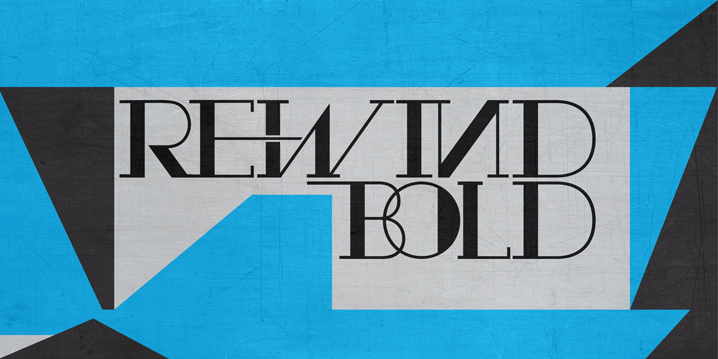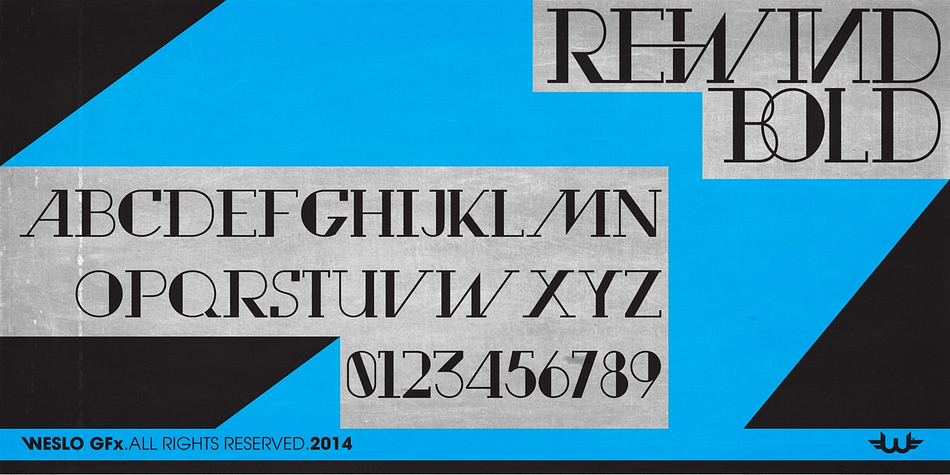
Rewind is a display serif and art deco font published by Weslo Fonts.
Rewind Typeface created by Wesley Pastrana ue inpired by another of my works Avant Retro and was better accepted than his inspiration still do not understand the reason but also to give a more elegant detail
Styles | Art Deco, Display Serif |